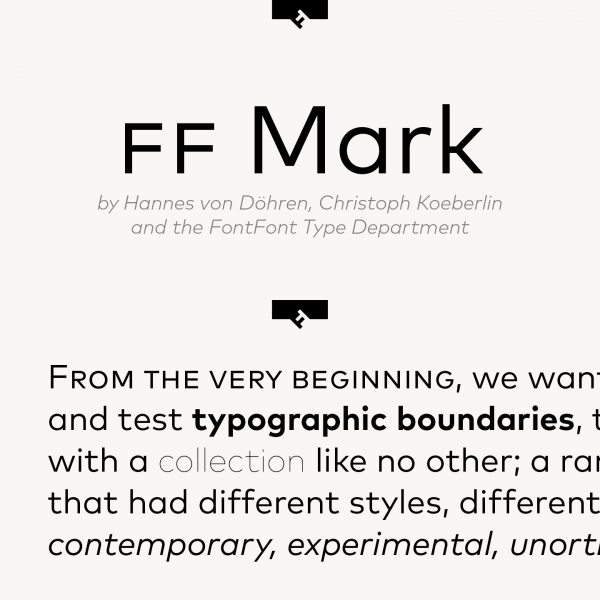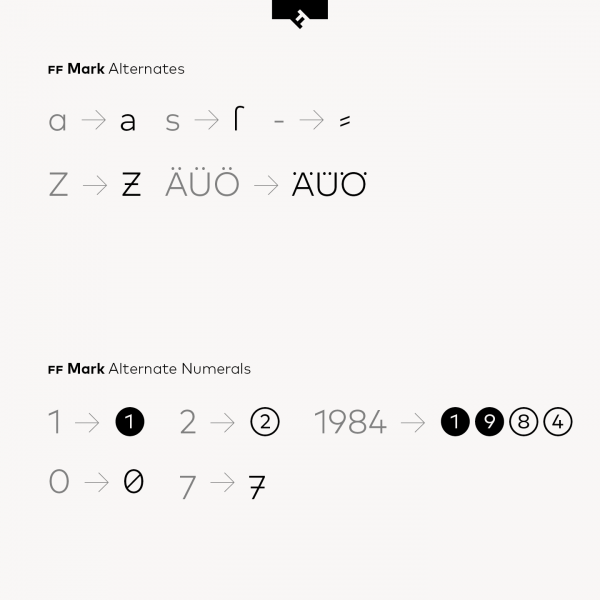
The FF Mark Font Family, finest German type design from the FontFont Type Department.
This modern sans serif was designed in 2013 by the renowned German typeface designers Hannes von Döhren and Christoph Koeberlin of the FontFont Type Department. The FF Mark font family consists of 10 weights ranging from Hairline to Black plus matching Italic versions for each weight. Its design is based on a modern, geometric look, which is well suited for a variety of applications such as film and TV, advertising, branding, packaging, editorial use, logos, software and gaming, and also web and screen design projects.
The FF Mark font family supports advanced typographic options such as alternate characters, case-sensitive forms, ligatures, fractions, super- and subscript characters, and it includes a set of stylistic alternates. FF Mark is equipped with diverse figure set options of oldstyle and lining figures. For further information, please follow the link below.